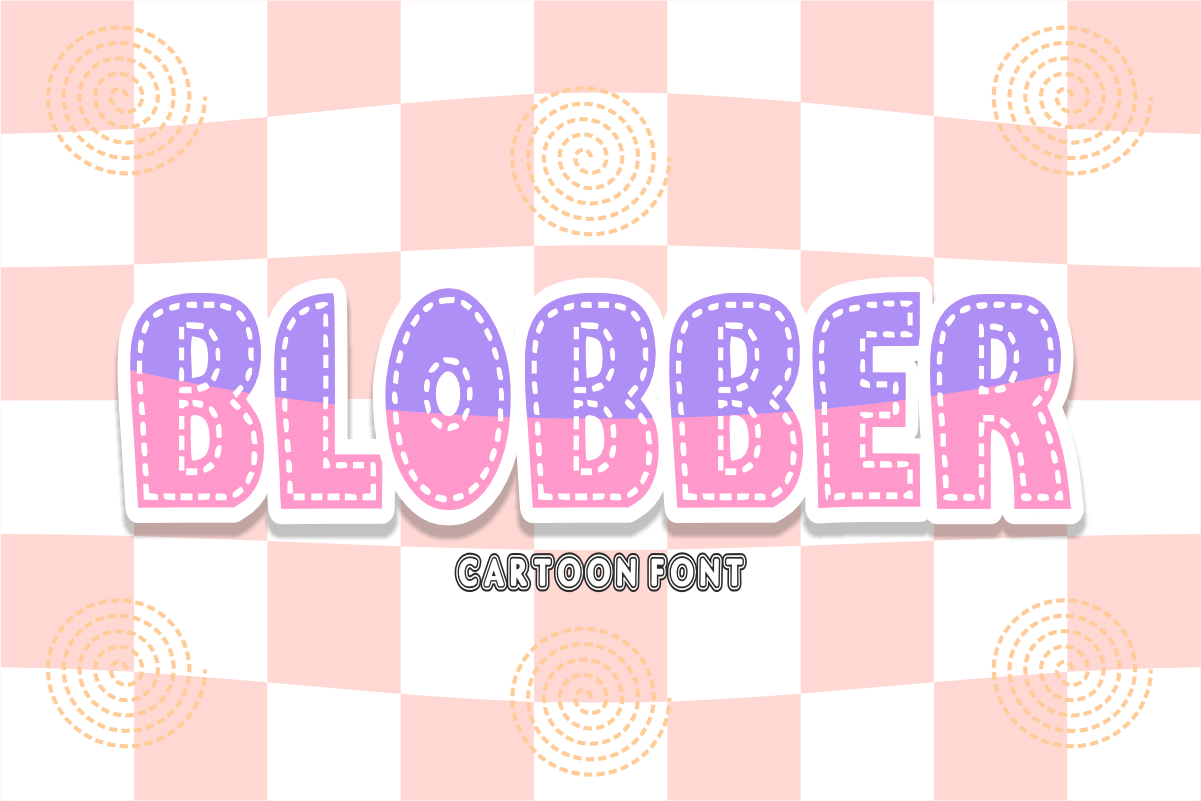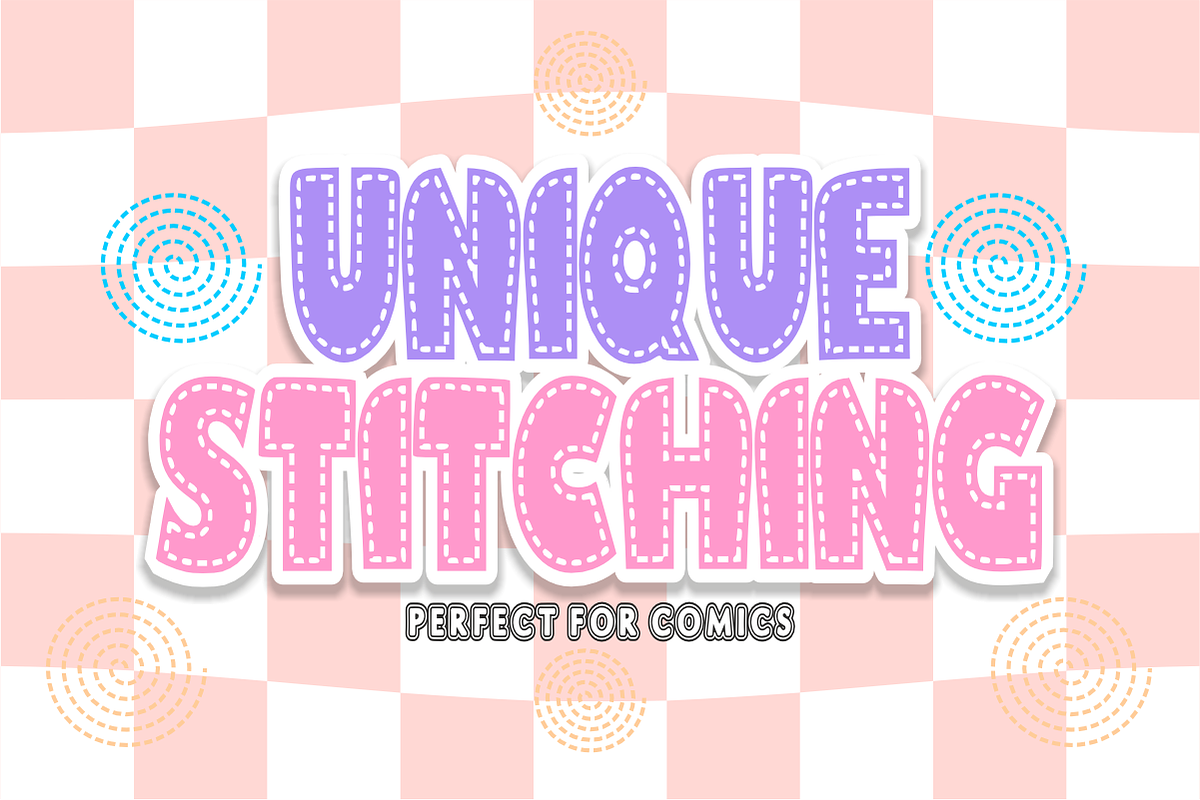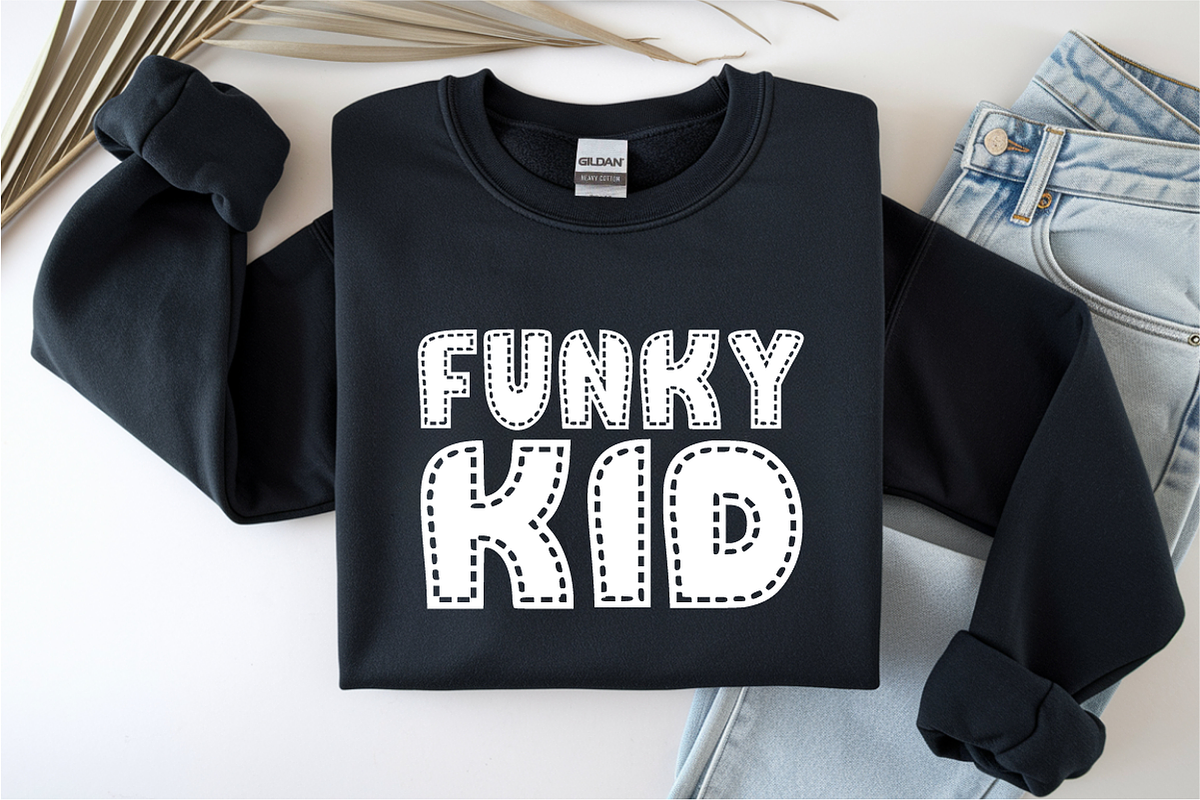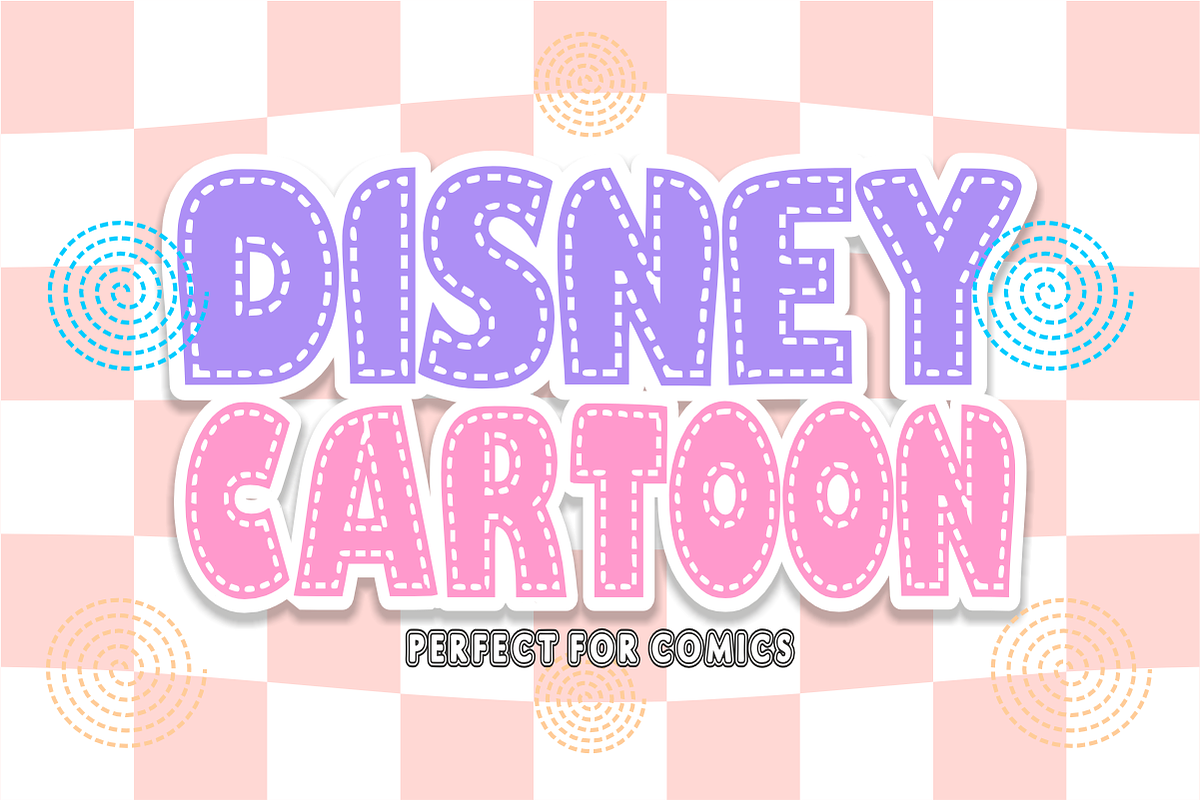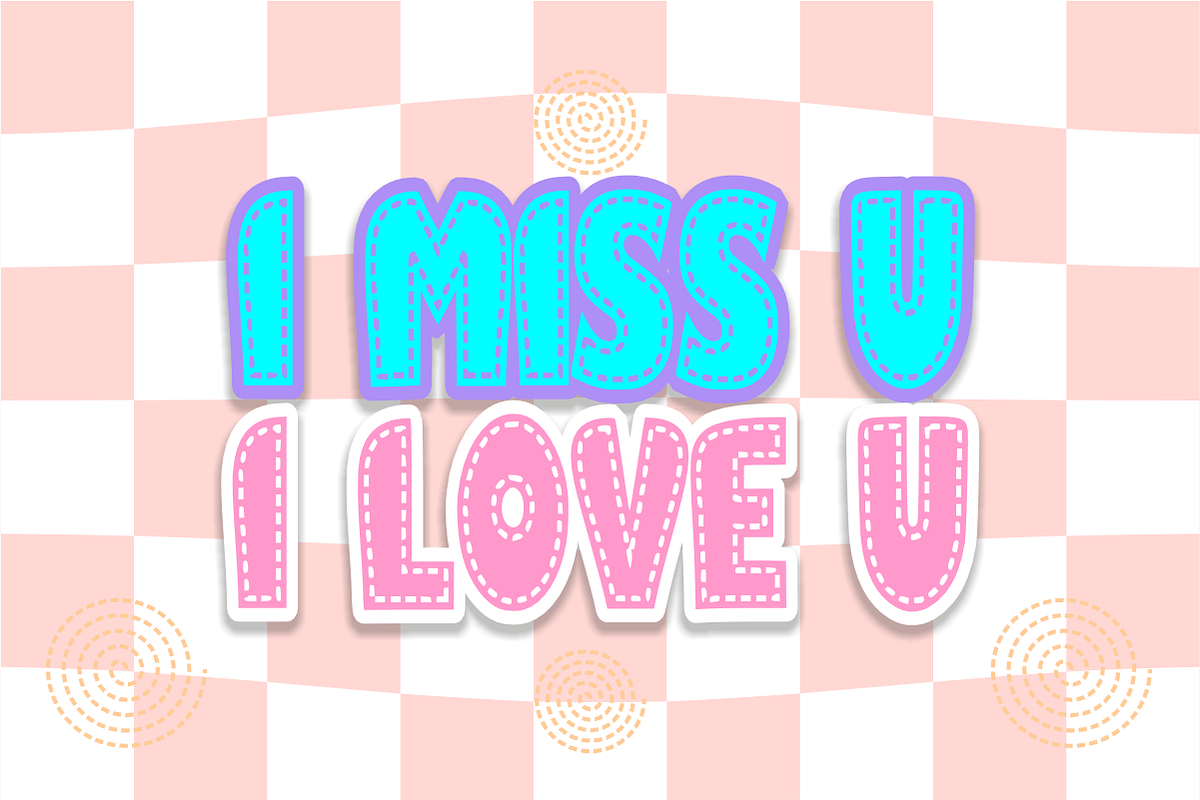
Blobber - Playful Bubble Font
Add a burst of cozy, playful charm to your creative designs with Blobber! This ultra-chunky cartoon display font features an adorable, whimsical stitched inner line effect that instantly gives your text a delightful hand-crafted, patch-like look. It is the perfect choice for making bold headlines and cheerful craft projects stand out.
Whether you are creating bright classroom materials, cute birthday themes, or trendy custom merchandise, Blobber beautifully blends a fun bubble aesthetic with exceptional readability. It is highly versatile, cuts beautifully on digital crafting tools like Cricut, and is fully optimized for a flawless look in all professional design programs.
All-Caps Character Set (Bold, rounded bubble letters with unique stitched detailing)
Numbers & Simple Punctuation (Essential, clean symbols included)
Kids Craft Projects, Nursery Decor, & School Teacher Resources 🏫
Cricut, Silhouette, & DIY Cute Sublimation Craft Projects ✂️
Children's Book Covers, Fairy Tale Illustrations, & Posters 📚
Cute Apparel Prints, Baby Clothes, Custom Tote Bags, & Merch 👕
Custom Die-Cut Stickers, Planner Decals, & Playful Packaging 🎨
High-Impact YouTube Thumbnails, Party Invites, & Social Media Layouts ✨